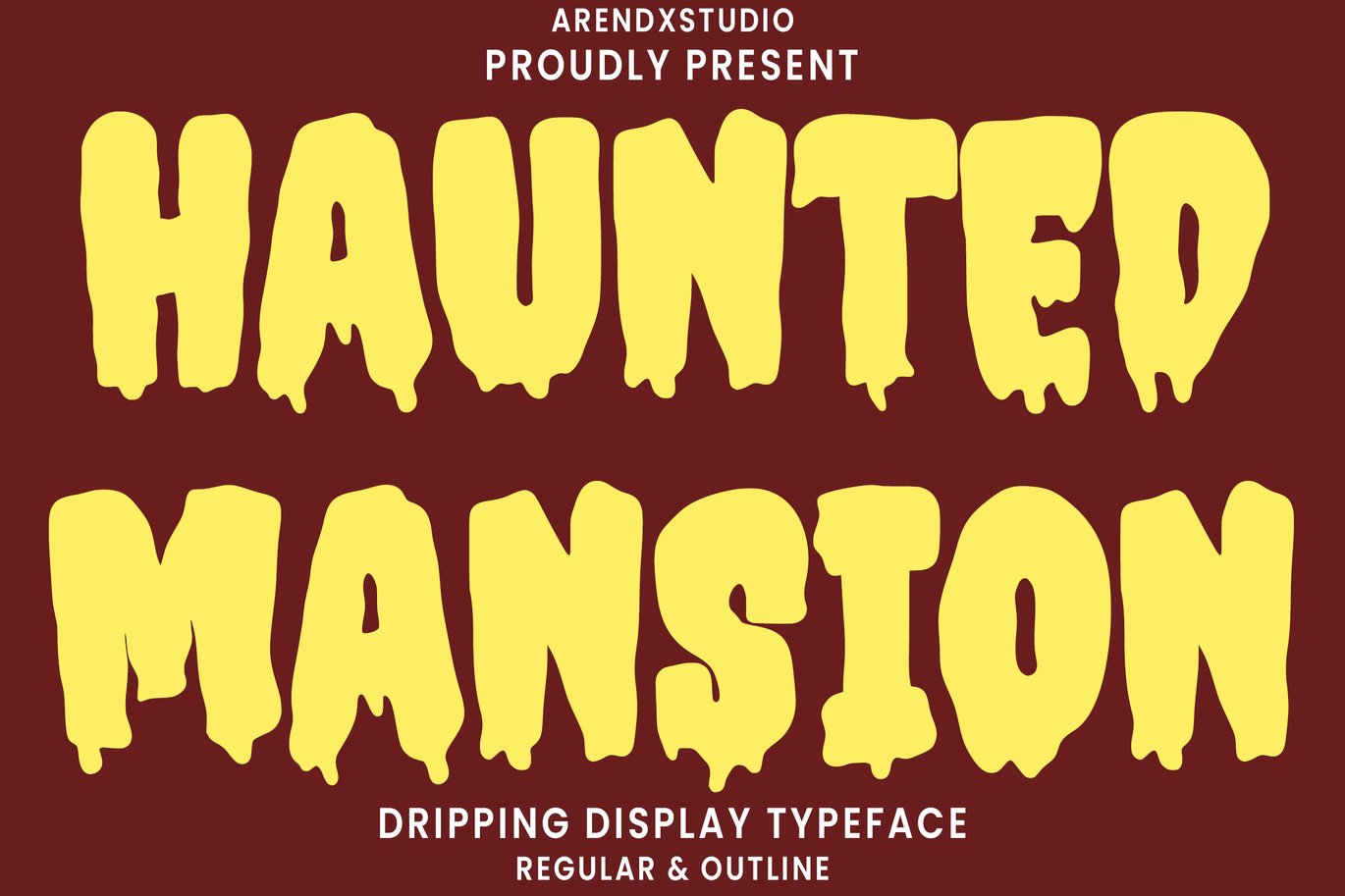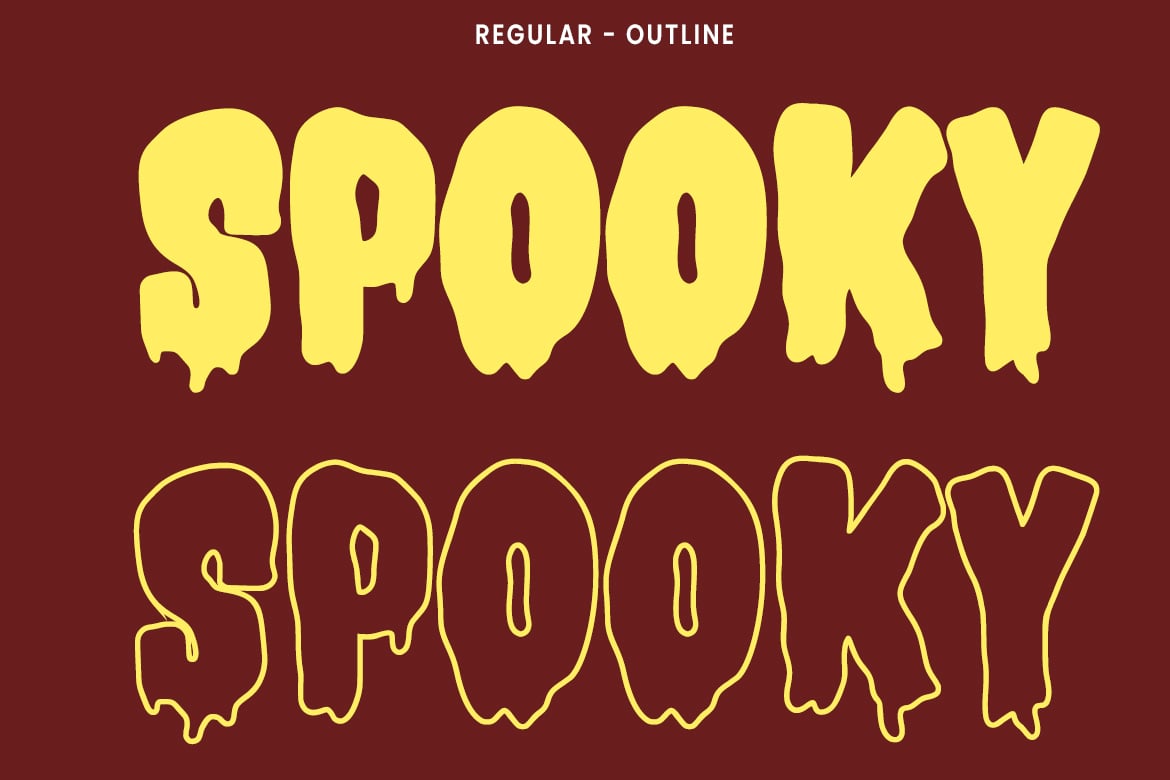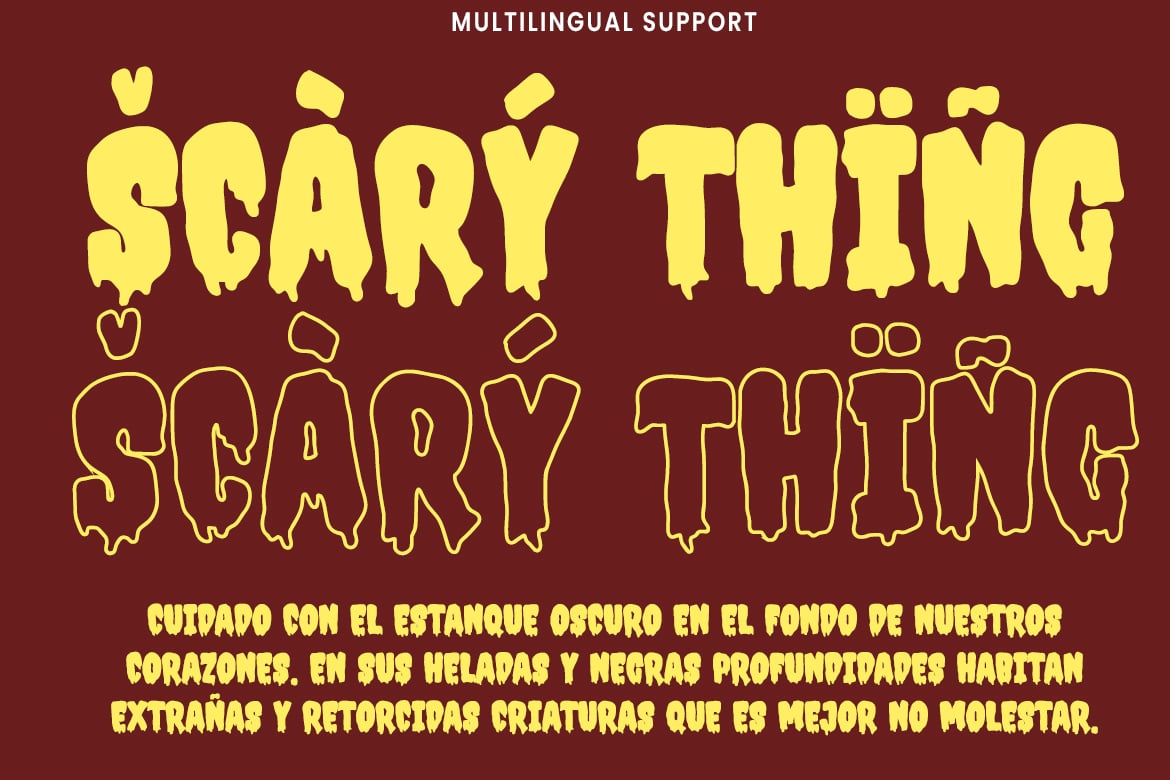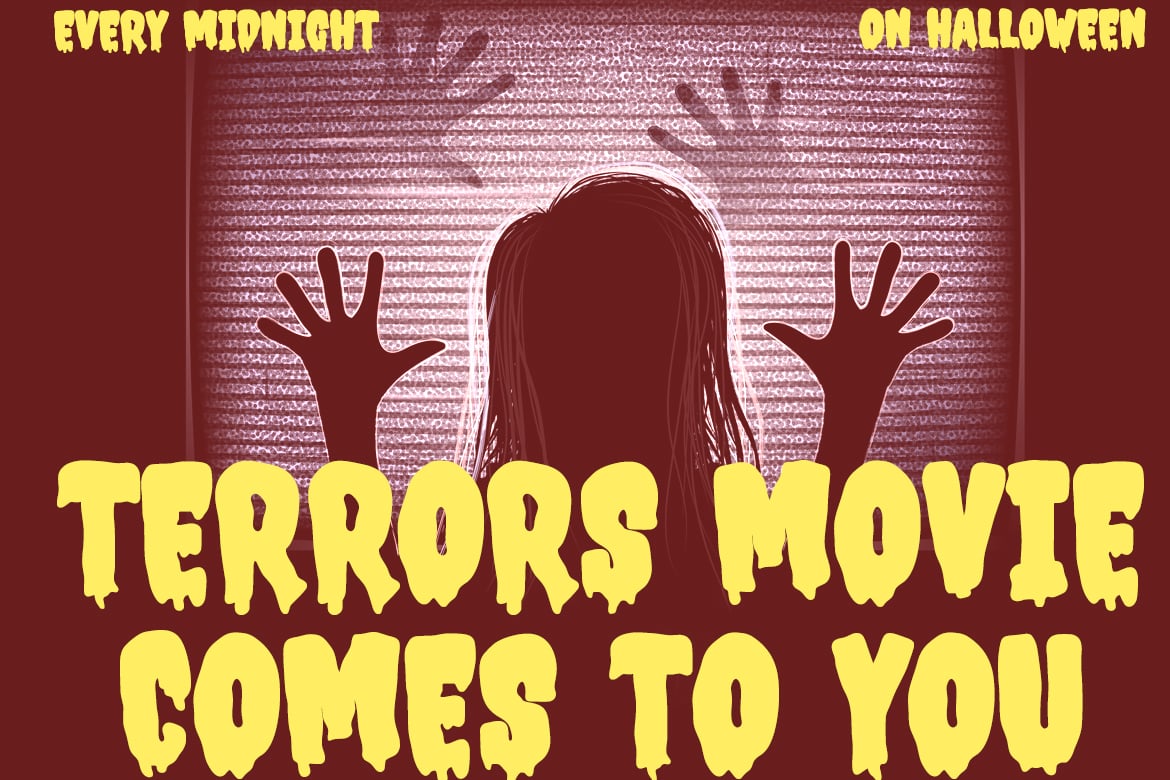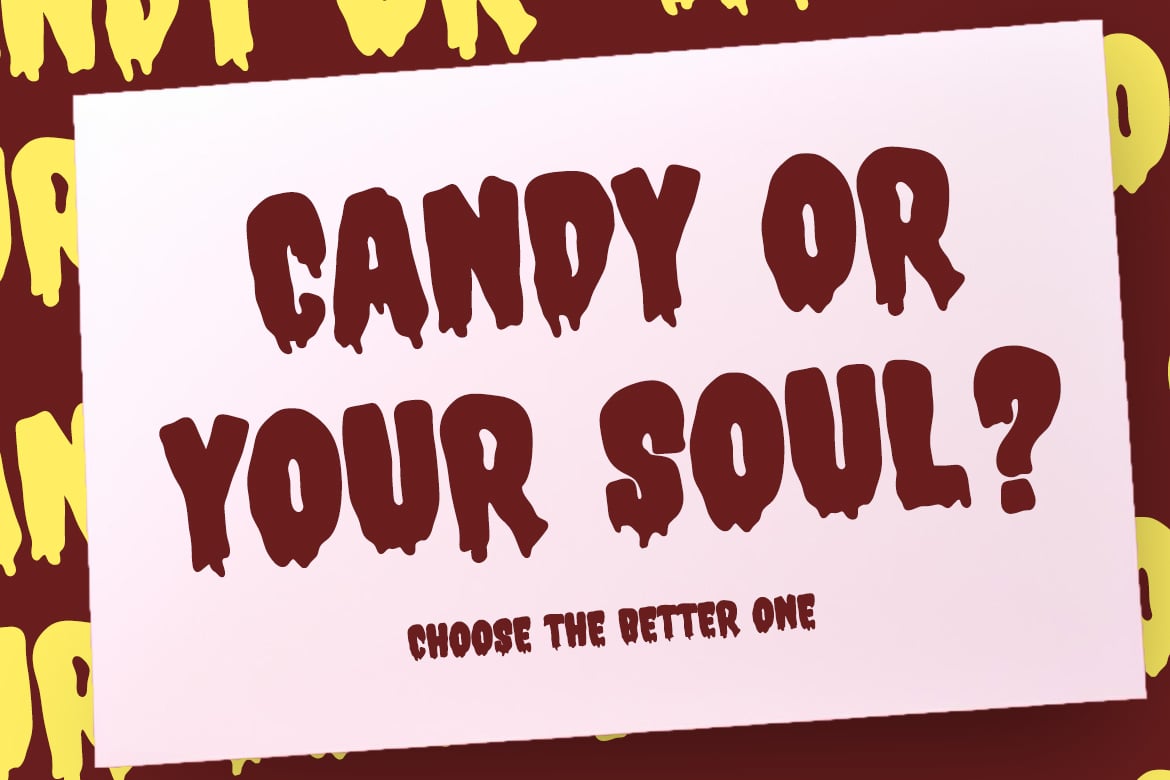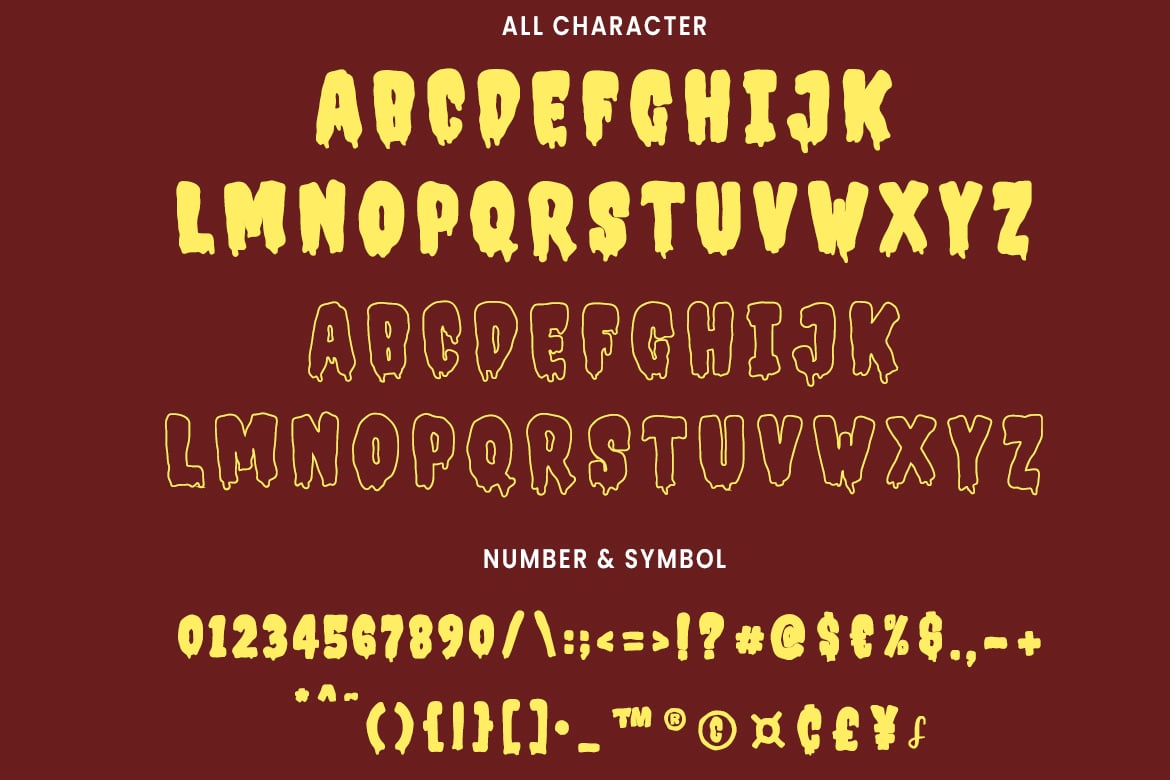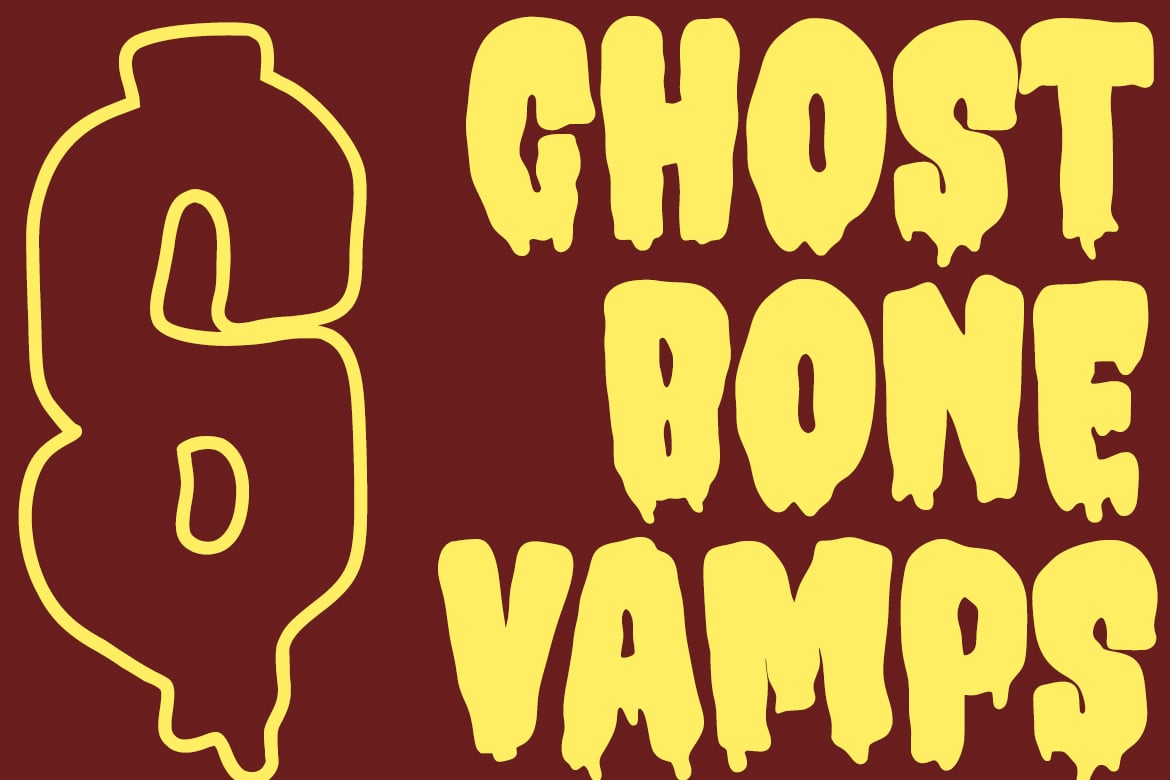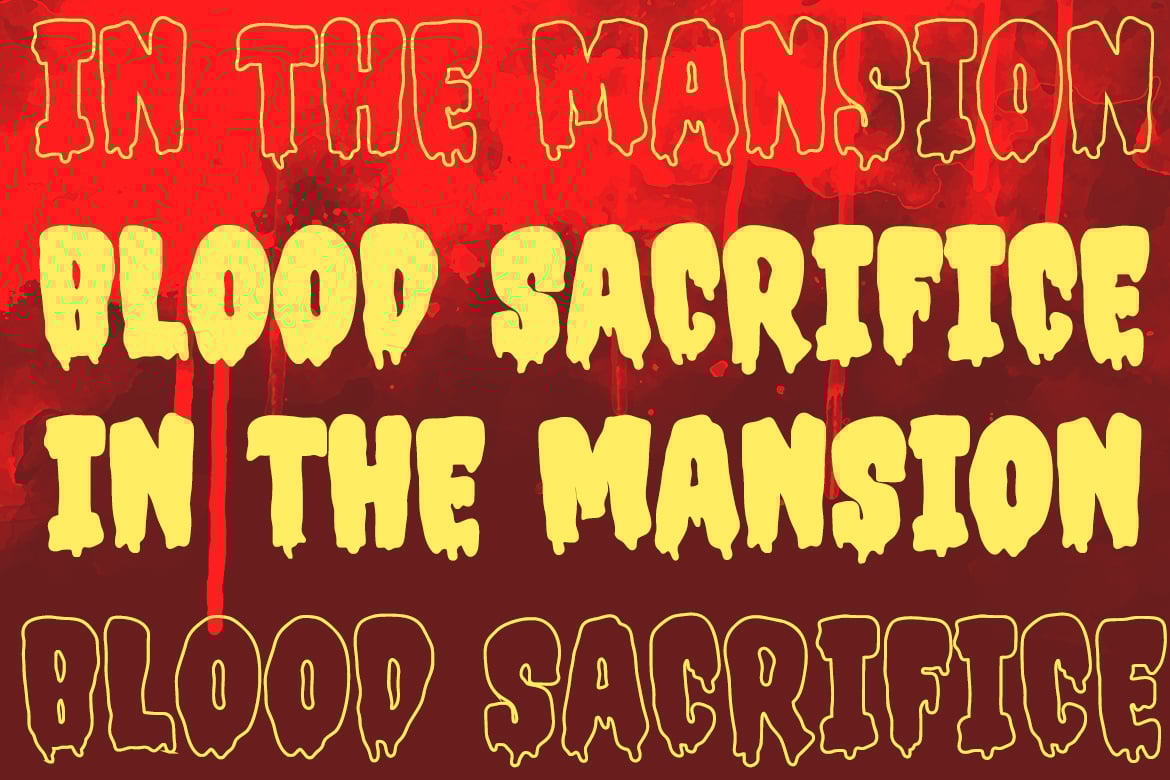
Haunted Mansion – Halloween Font
Introducing “Haunted Mansion”
Haunted Mansion – A Halloween Font
Uppercase & Lowercase
Number & Punctuation
Multilingual Language